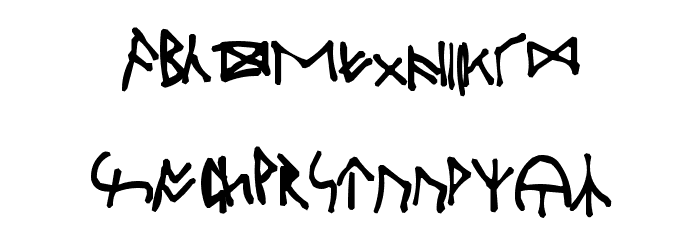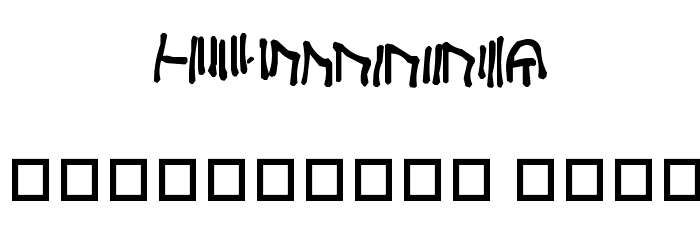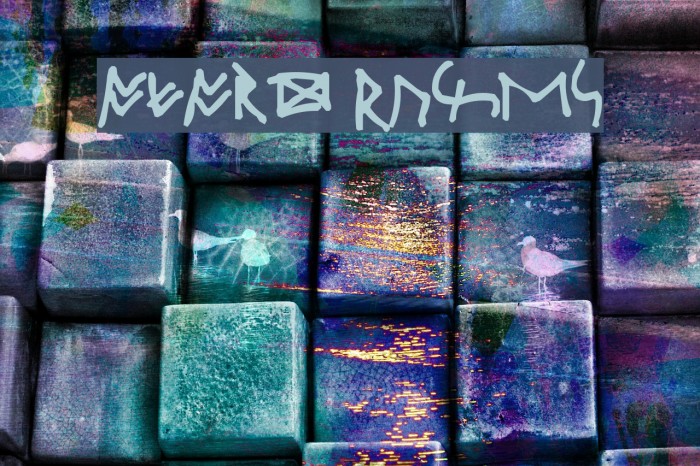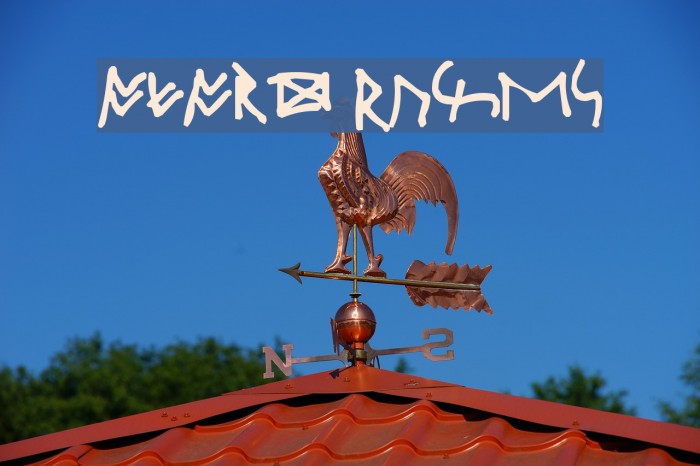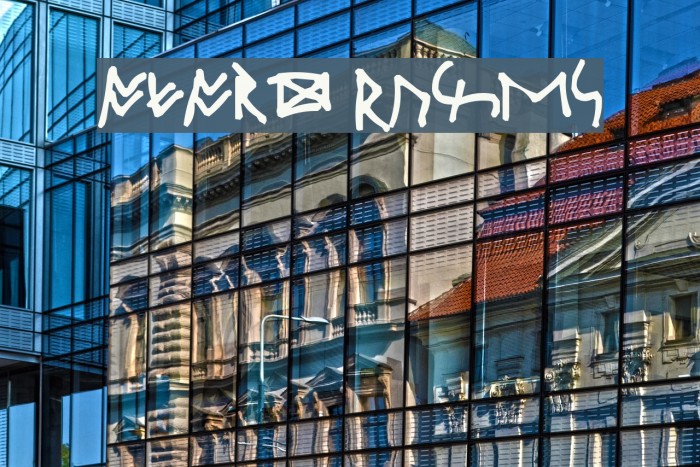
Oxford Runes Font
This font features a unique, ancient runic style that evokes a sense of mystery and historical depth. The characters are crafted with angular lines and geometric shapes, reminiscent of ancient inscriptions. The uppercase and lowercase letters maintain a consistent style, with each character appearing as if carved into stone. The numbers and special characters follow the same aesthetic, ensuring a cohesive look across all elements. This font is ideal for projects that require an ancient or mystical theme, offering a distinctive and memorable appearance.
A runic-style font with angular, geometric characters for a mystical, ancient look.
- Proposed Projects: Ideal for fantasy book covers, historical documentaries, themed event invitations, or video game design.
- Overall Style: Mystical, Ancient, Historical
- Use Case: Logos, Titles, Themed Designs